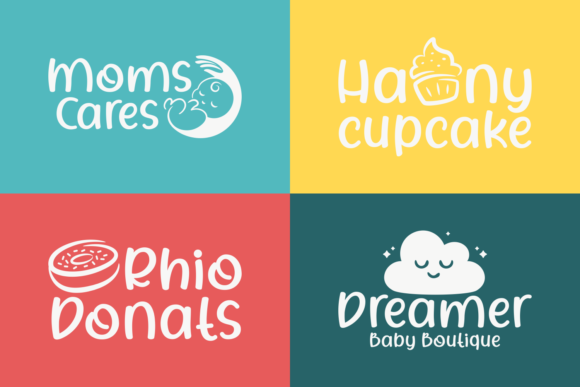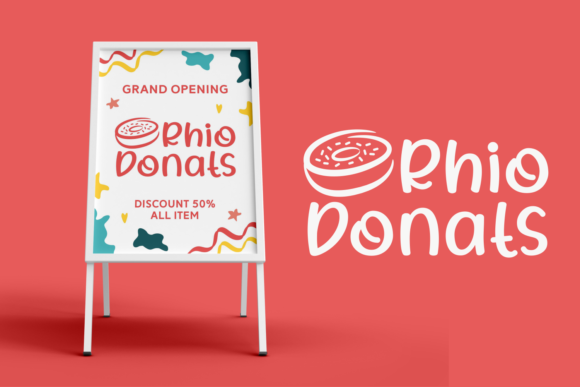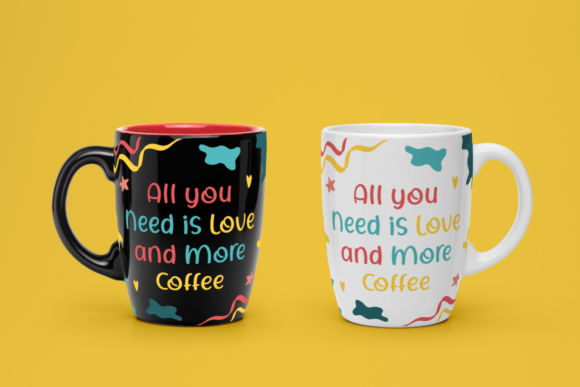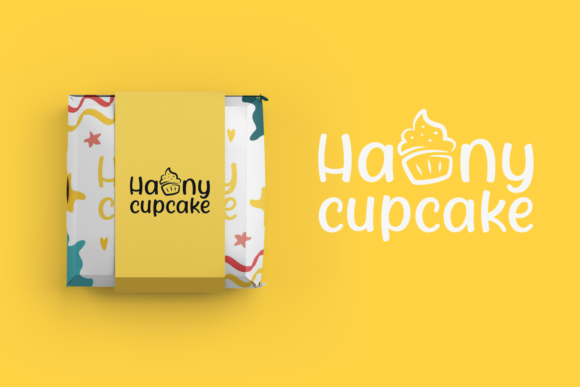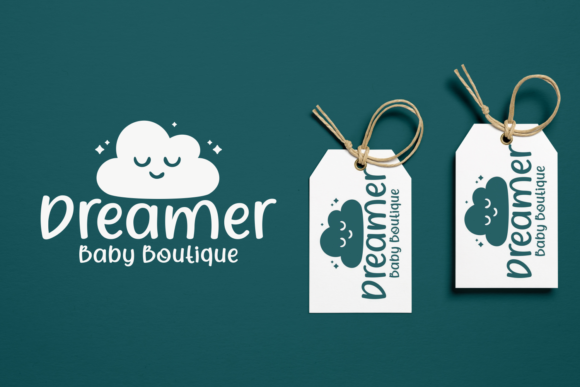
Introduction to Rhigen Font
As a designer, you know that sometimes the perfect font can make all the difference in bringing a creative project to life. You’re browsing through a sea of options, searching for that elusive combination of style and functionality that will elevate your design from good to great. And then, you stumble upon it – the Rhigen Font. With its whimsical script and playful feel, this high-quality font is sure to add a touch of magic to your design.
Whether you’re working on a personal project or a high-profile client, the Rhigen Font is a valuable resource that will take your designs to the next level. Its transparent background and free download make it an attractive choice for designers looking for a reliable and cost-effective design resource. In this article, we’ll dive deeper into the world of Rhigen Font and explore why it’s a must-have for any creative project.
Key Features of Rhigen Font
- High-quality, unique design ideal for creative projects
- Transparent background, allowing for easy layering and customization
- Optimized for high-resolution displays, ensuring crisp and clear typography at 300 DPI
- Extensive character set, including Latin, Cyrillic, and Greek alphabets, for global design applications
- Perfect for use in logos, branding materials, and digital designs where a distinctive, creative font is required
Honest Review: Rhigen Font
I recently stumbled upon the Rhigen Font, and I’m excited to share my thoughts on this high-quality design resource. As a designer, I’m always on the lookout for fresh and creative fonts to elevate my projects.
The Rhigen Font has a unique, modern design that makes it perfect for a wide range of creative projects. Its sleek lines and elegant feel give it a high-end look that’s sure to impress.
- ✨ Unique and modern design that stands out from the crowd
- ✨ Highly customizable, making it perfect for various design projects
- ⚠️ Limited character set, which may not be ideal for complex projects
- ⚠️ Not ideal for projects that require a transparent background, as it may not render well
Overall, I’m really impressed with the Rhigen Font. Its high-quality design and versatility make it an excellent addition to any designer’s toolkit. While it may have some limitations, it’s a great resource for designers looking to add some creativity to their projects.
To get the most out of Rhigen Font, use it in conjunction with a transparent background to create a unique and eye-catching design. You can also experiment with different font sizes and styles to add depth and visual interest to your project.